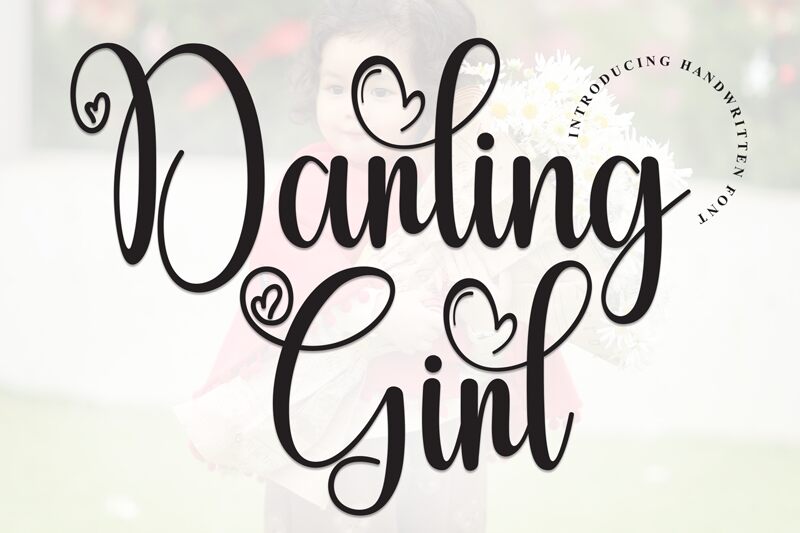
Darling Girl font
Darling Girl
Discover exceptional creative products designed to elevate your projects with our unique free font offerings. Our latest stylish letters are perfect for various applications, including wall displays, wedding invitations, social media logos, advertisements, product packaging, labels, photography, watermarks, stationery, and any projects that require elegant handwriting.